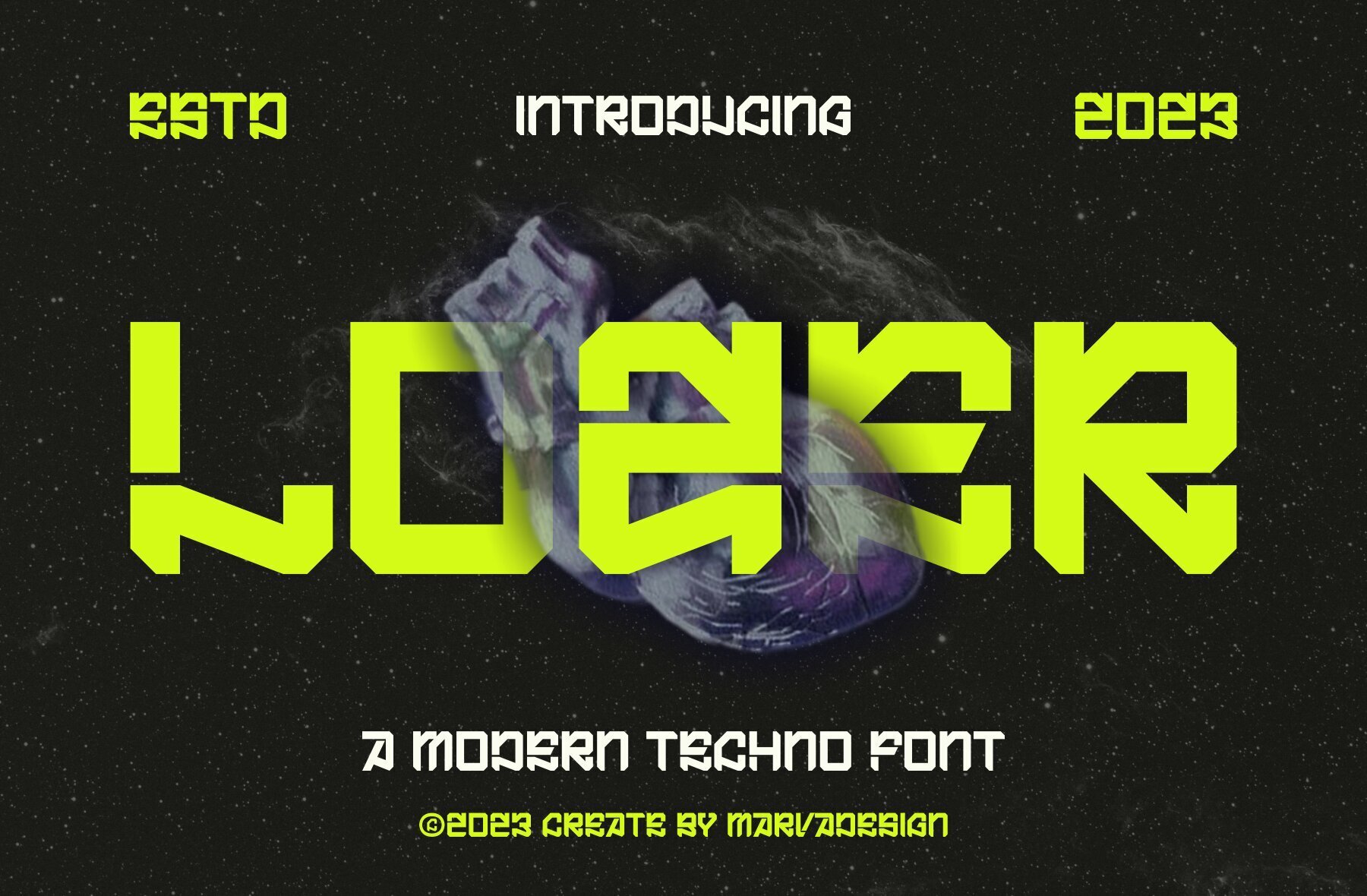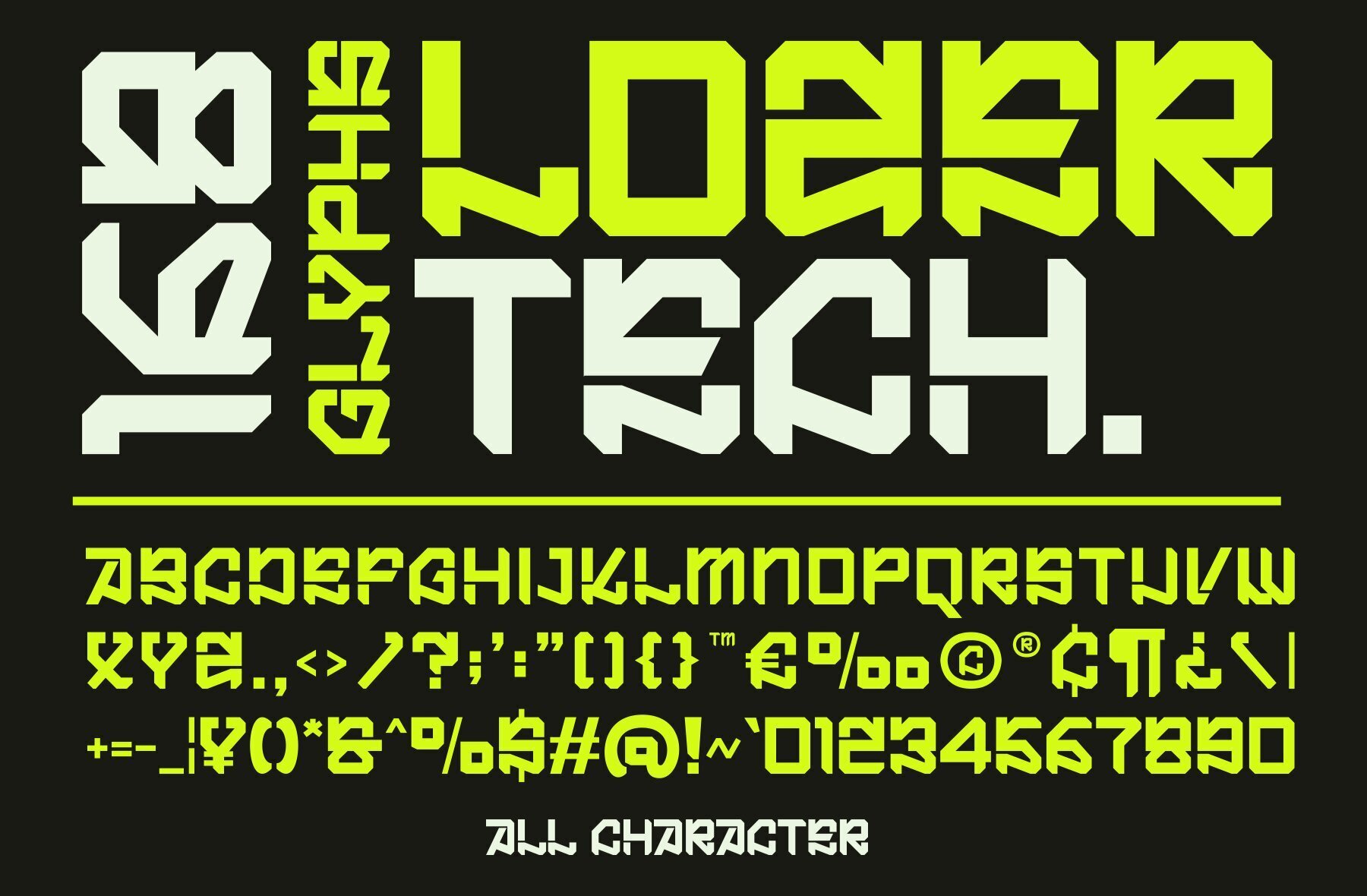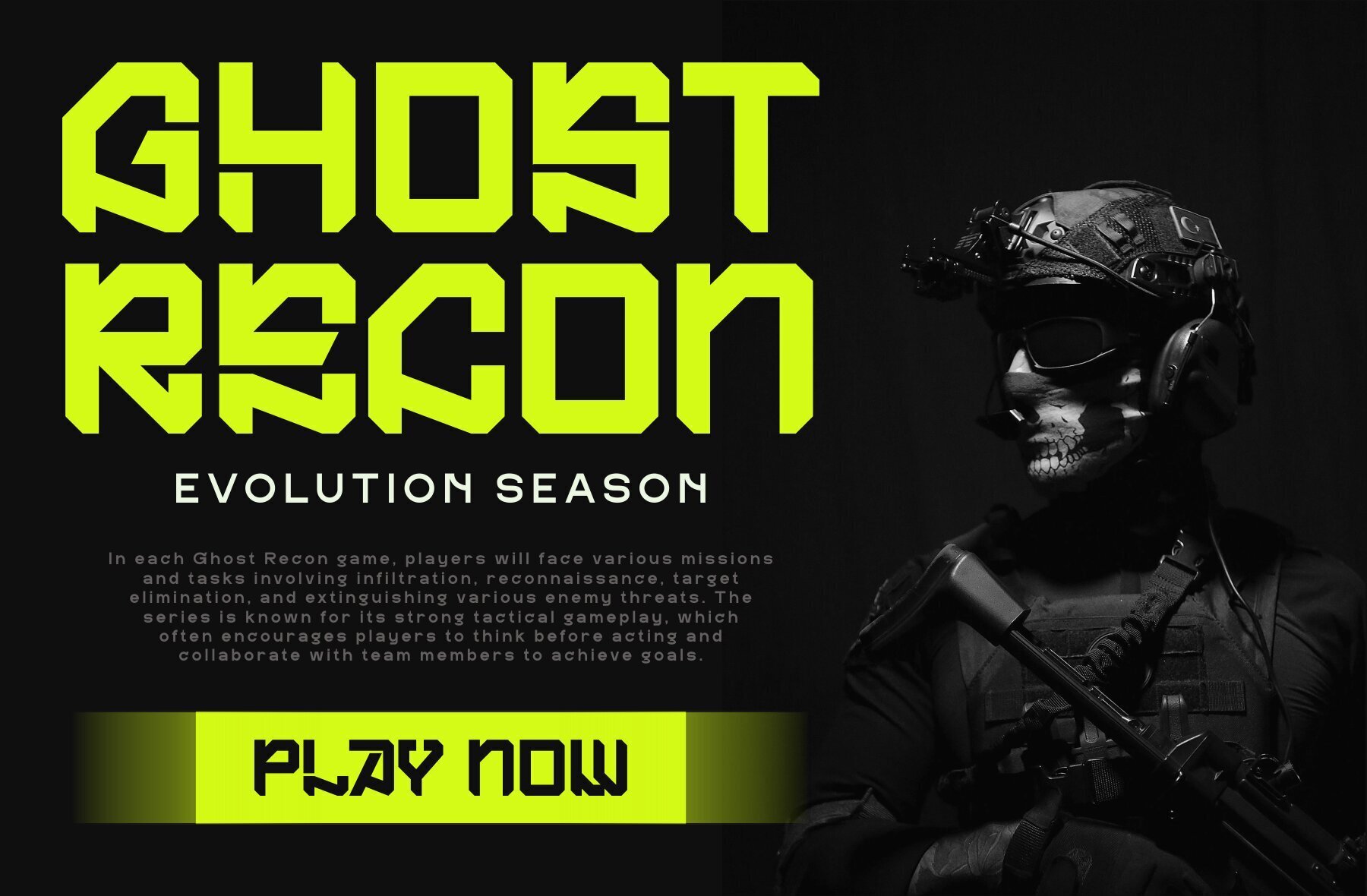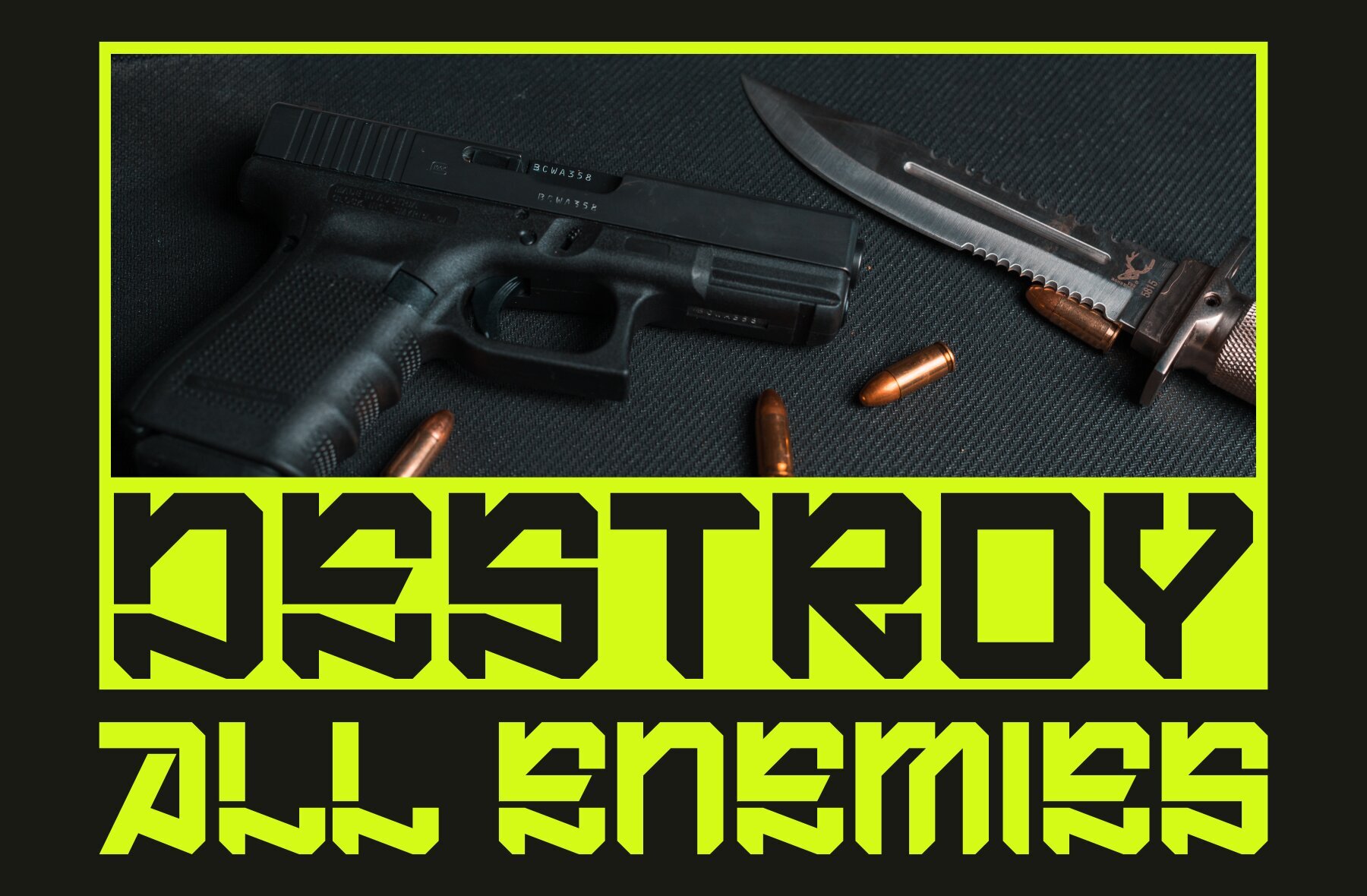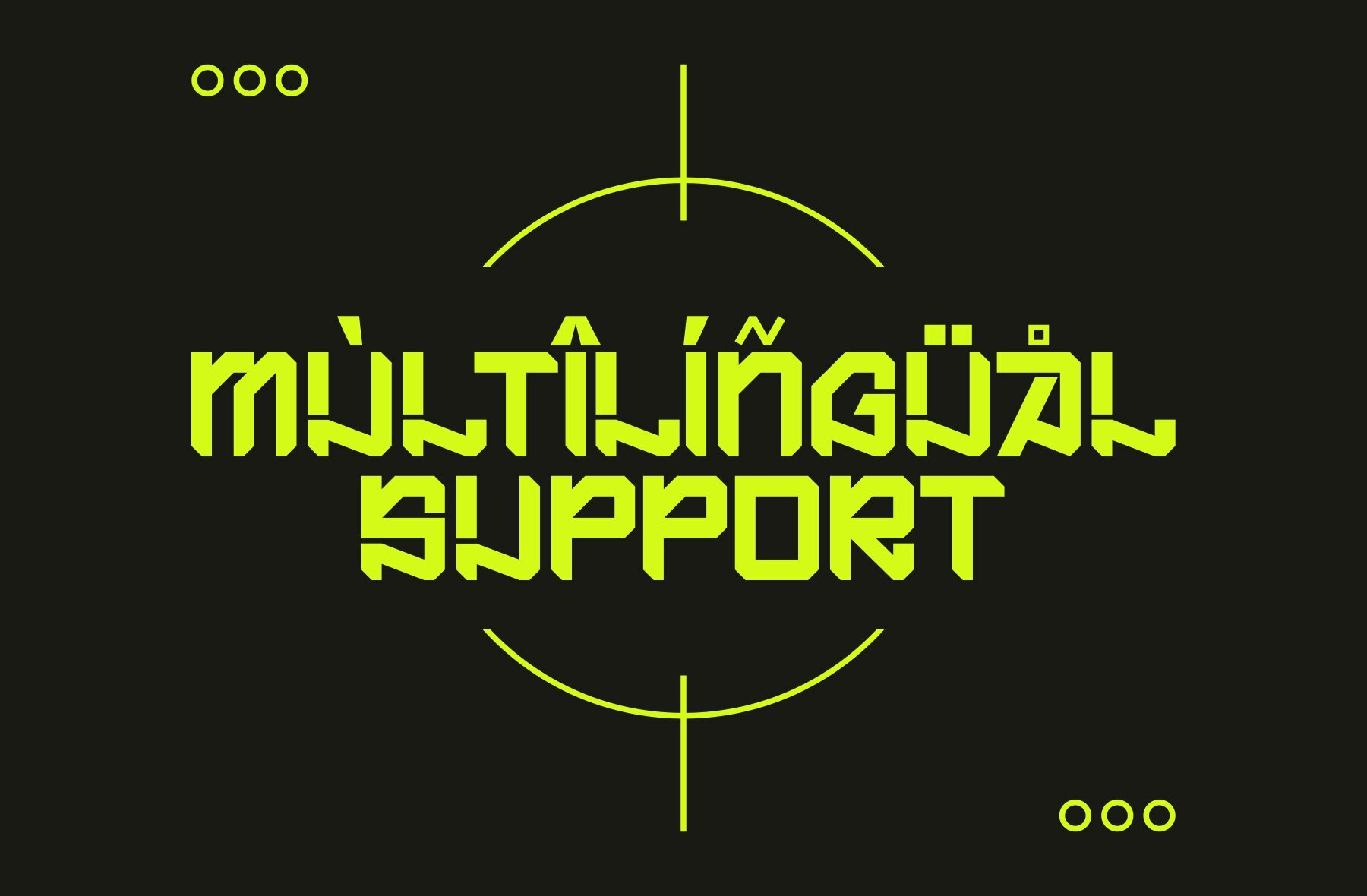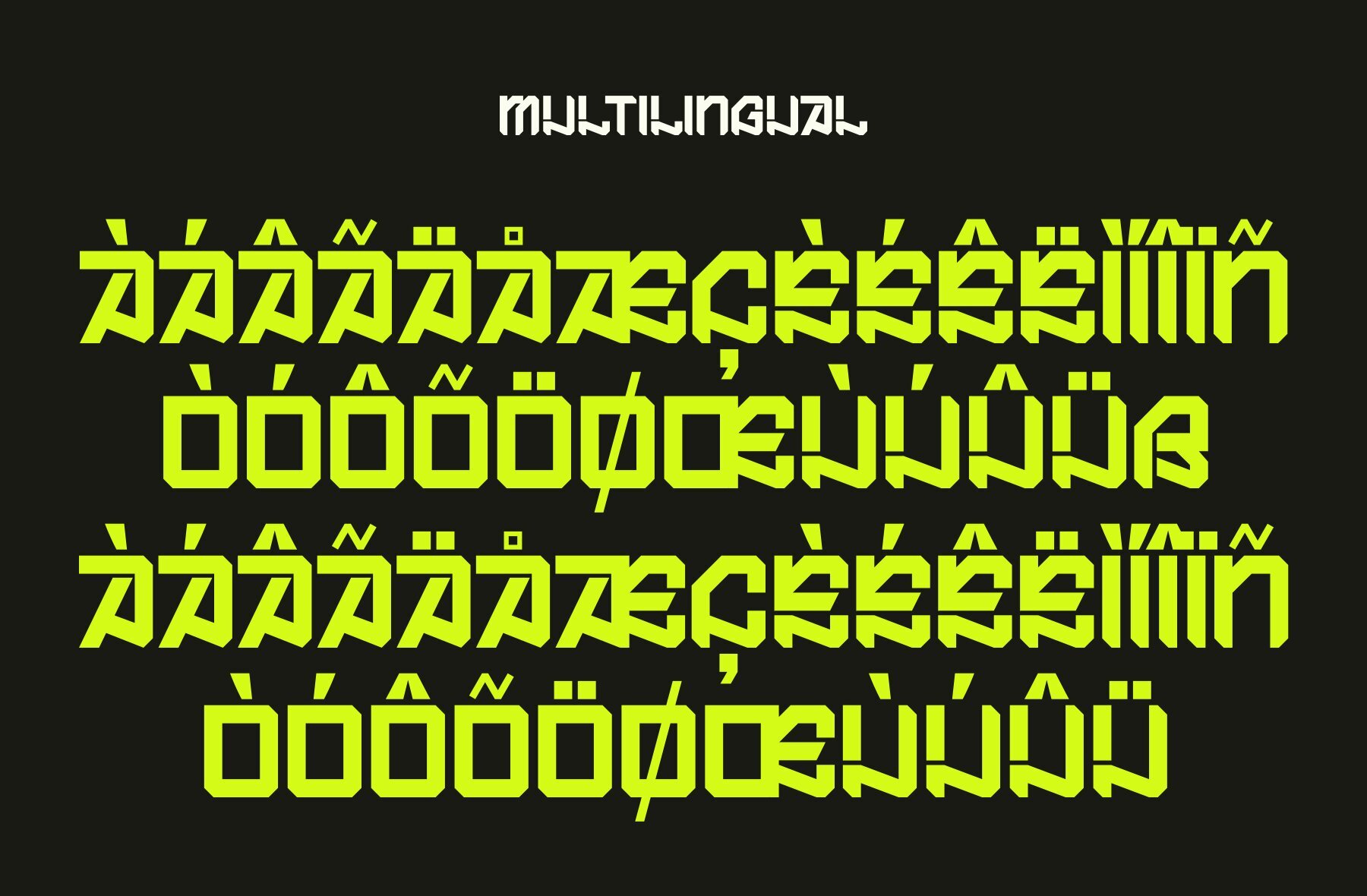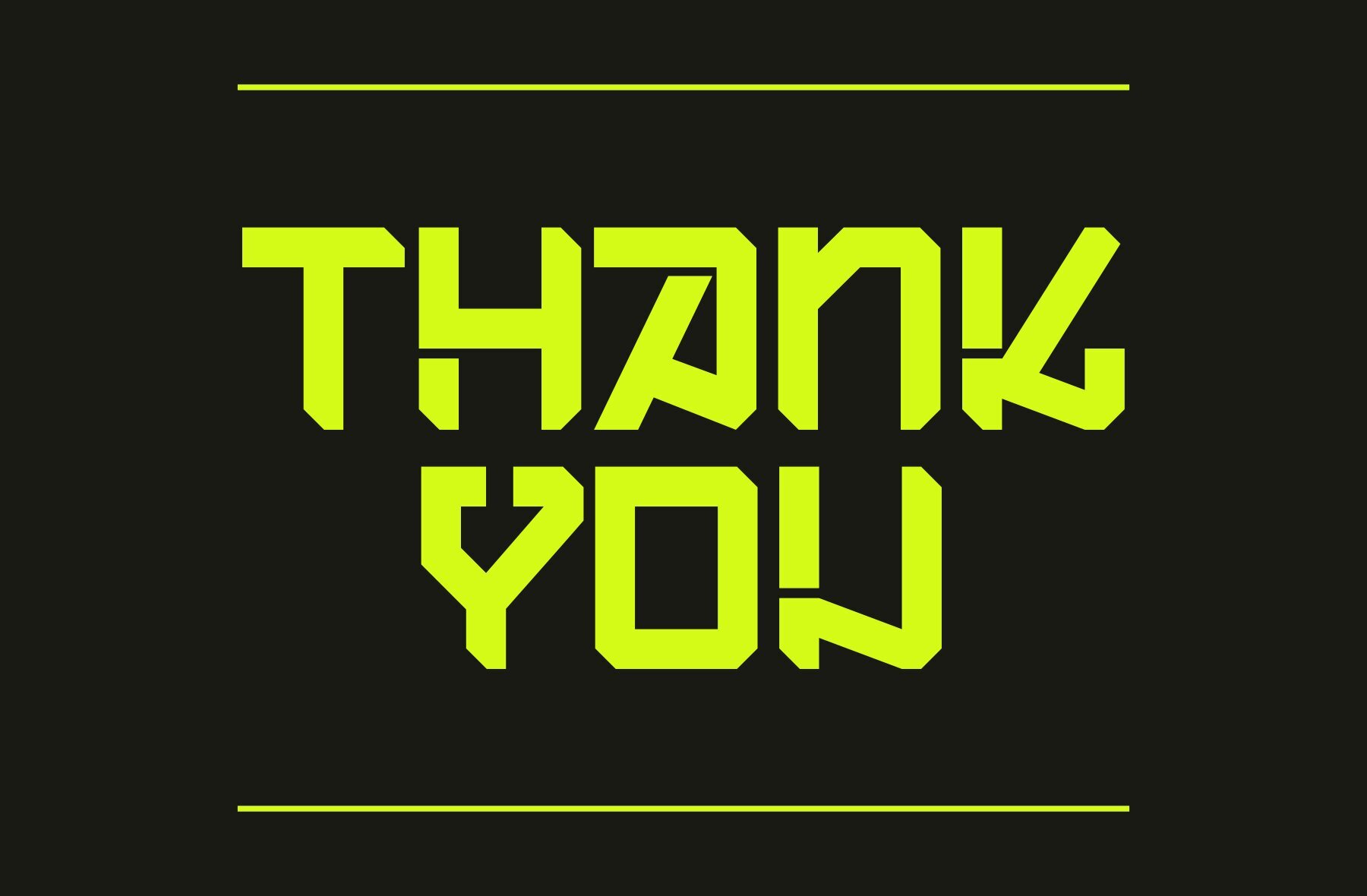
Lozer Font
Lozer Regular
Lozer is a modern techno font known for its bold and authentic display. Perfect for a wide range of branding projects, including logos, template designs, and products, Lozer stands out in numerous contexts.Lozer: A Bold and Authentic Techno Font